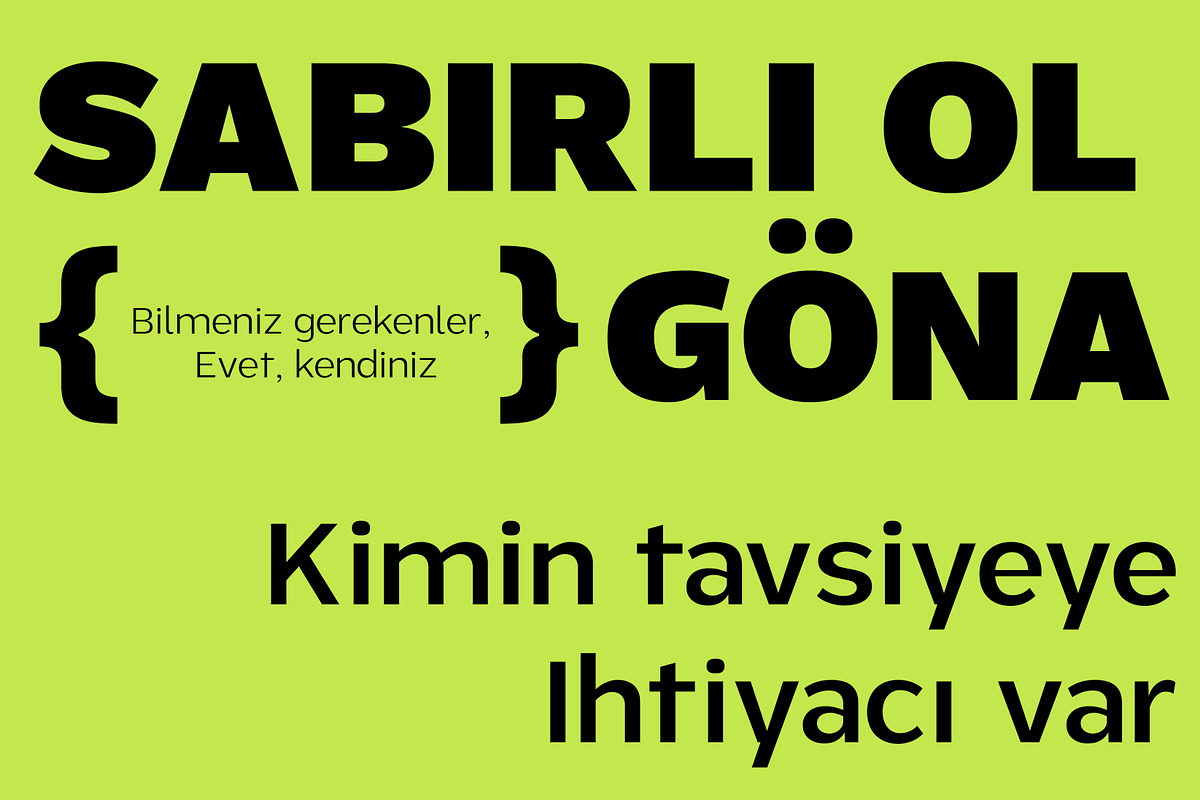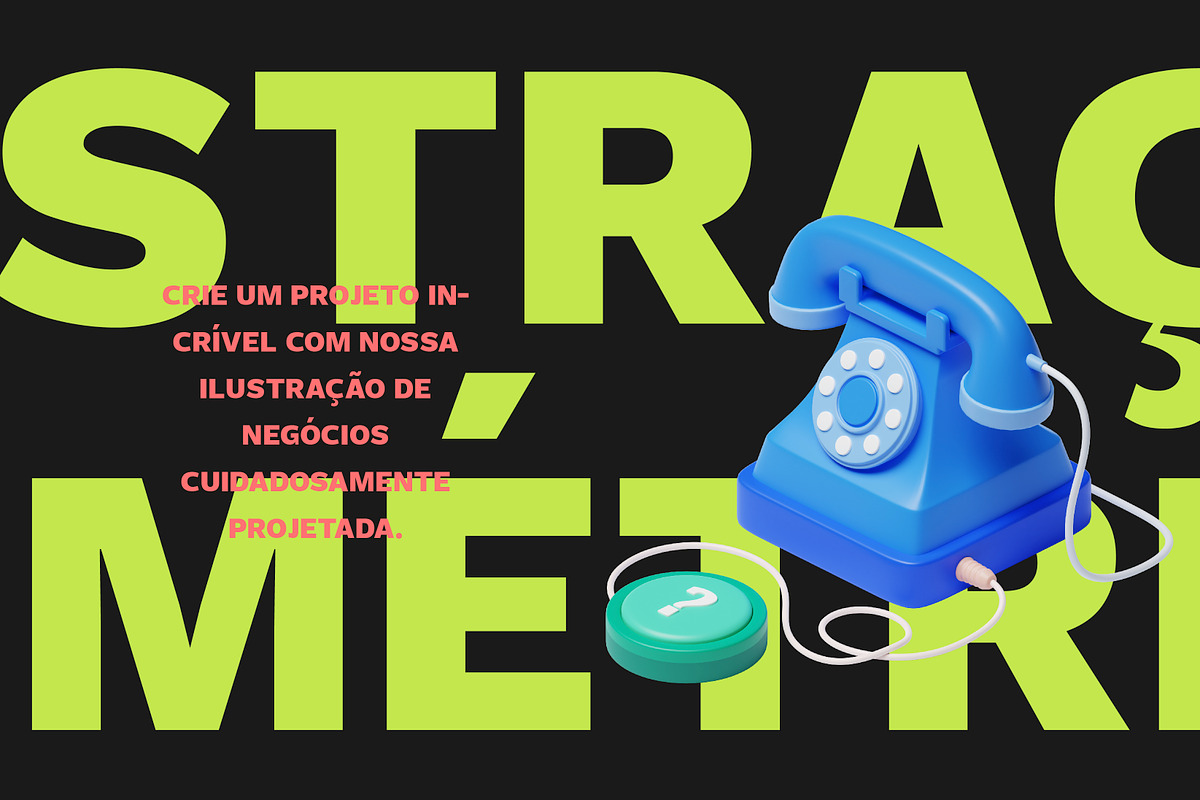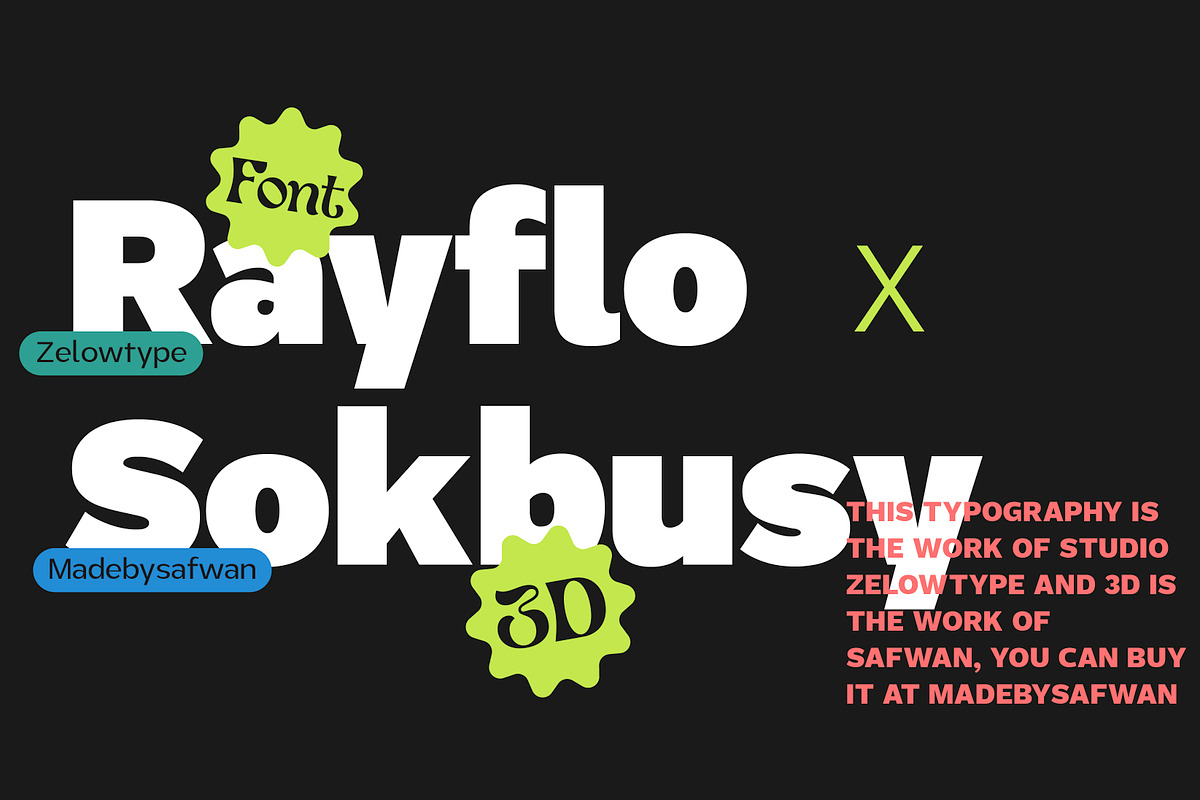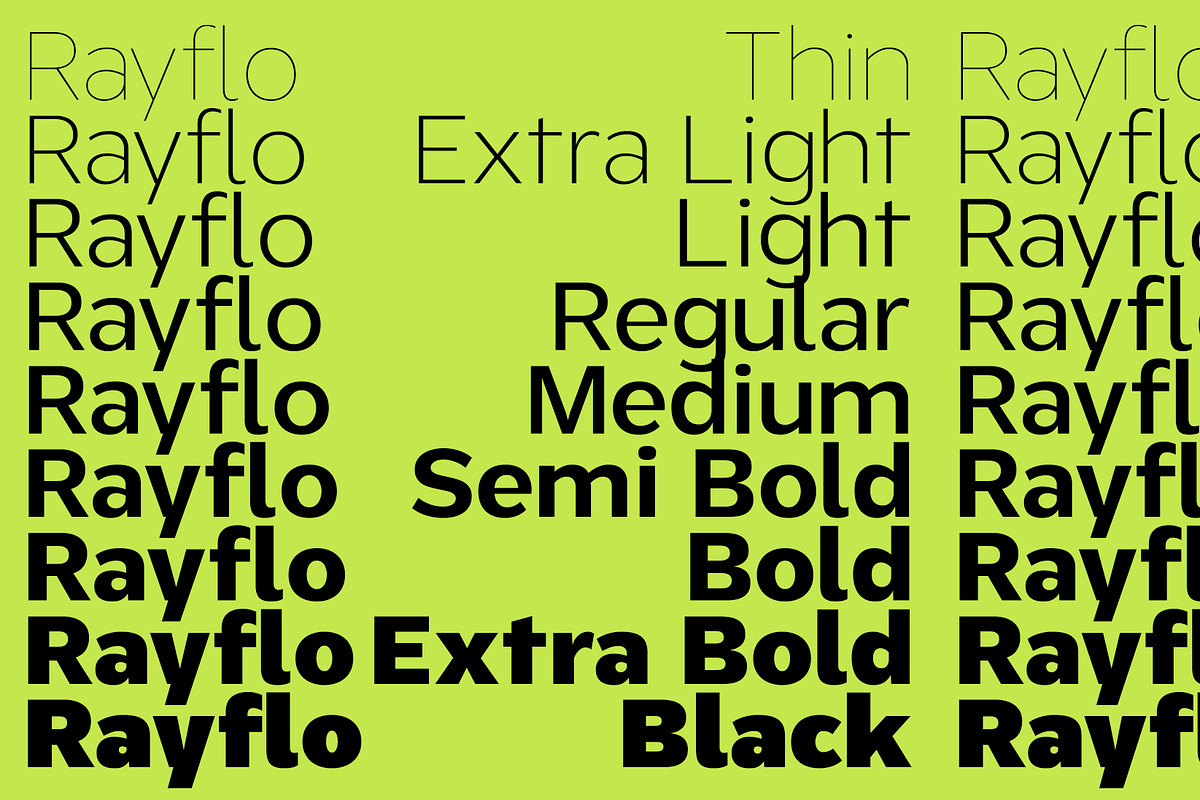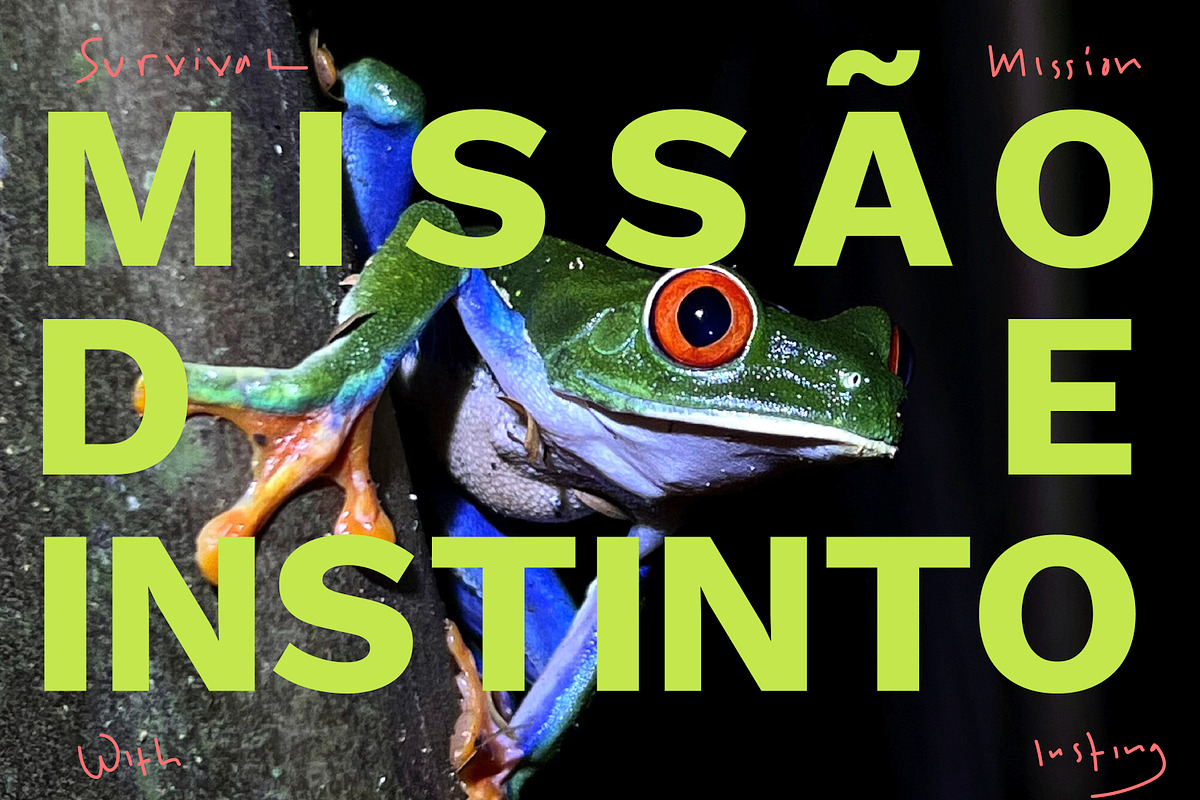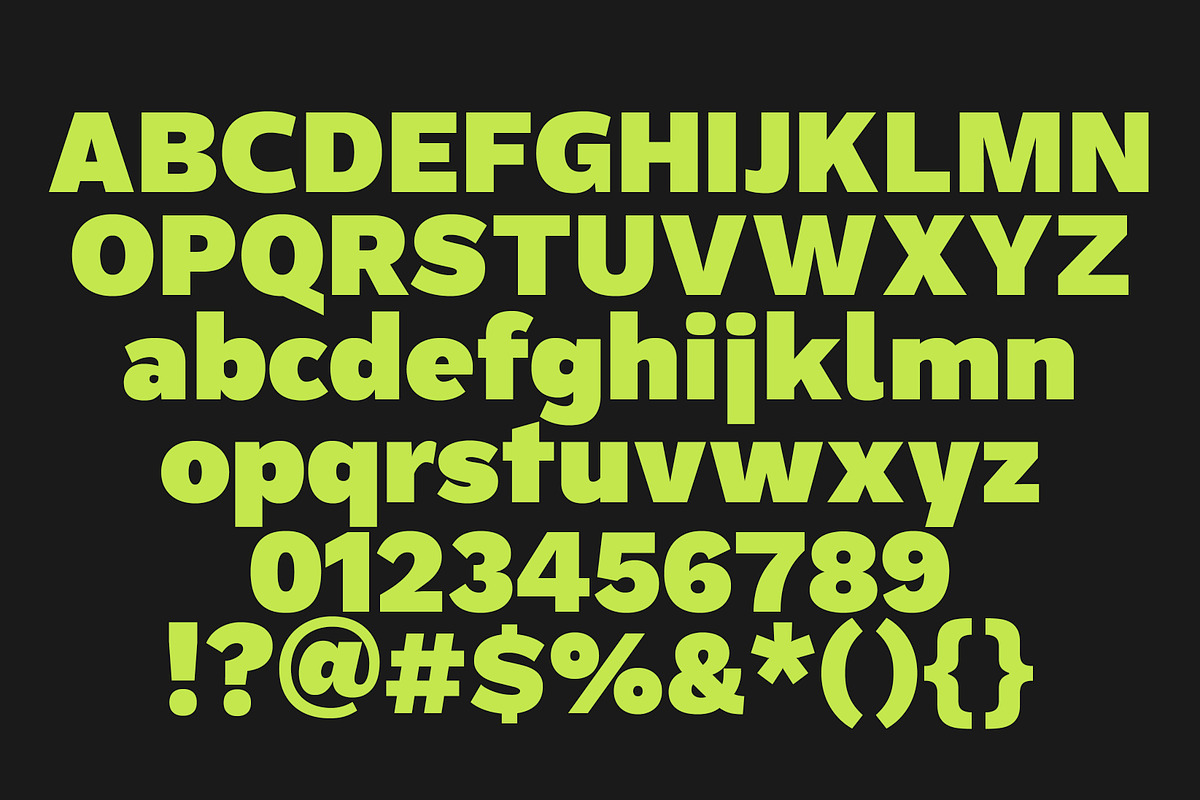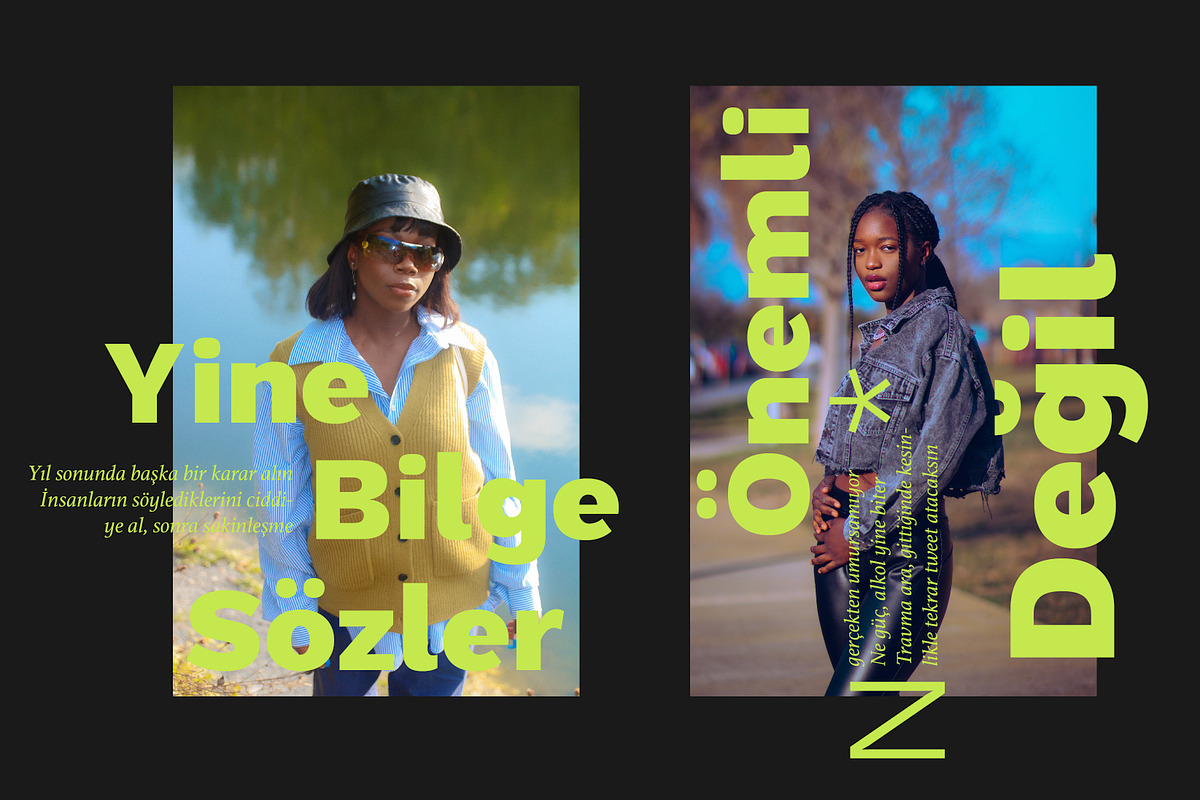
ZT Rayflo
ZT Rayflo is a sans serif font family with full simplicity, no clutter in it, just fonts with a gentle flow. This font has nine weights from light to black.
ZT Rayflo even with its simple style is perfect if you need it for your design, it will always look fashionable and stylish wherever it is.